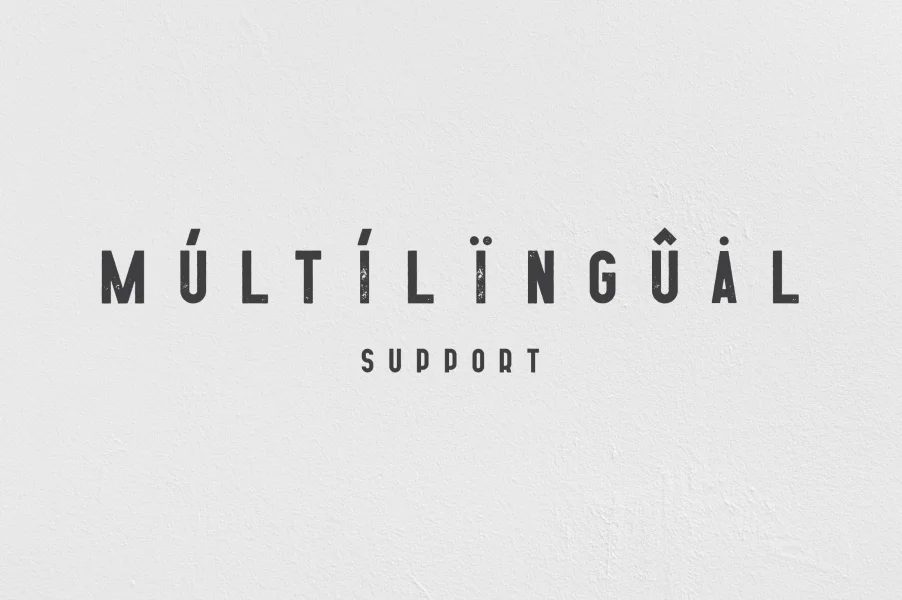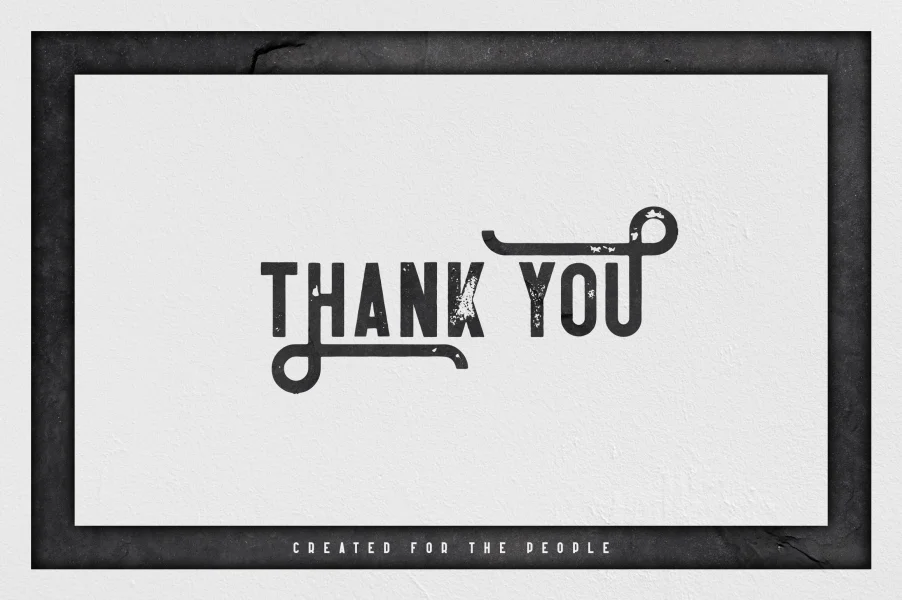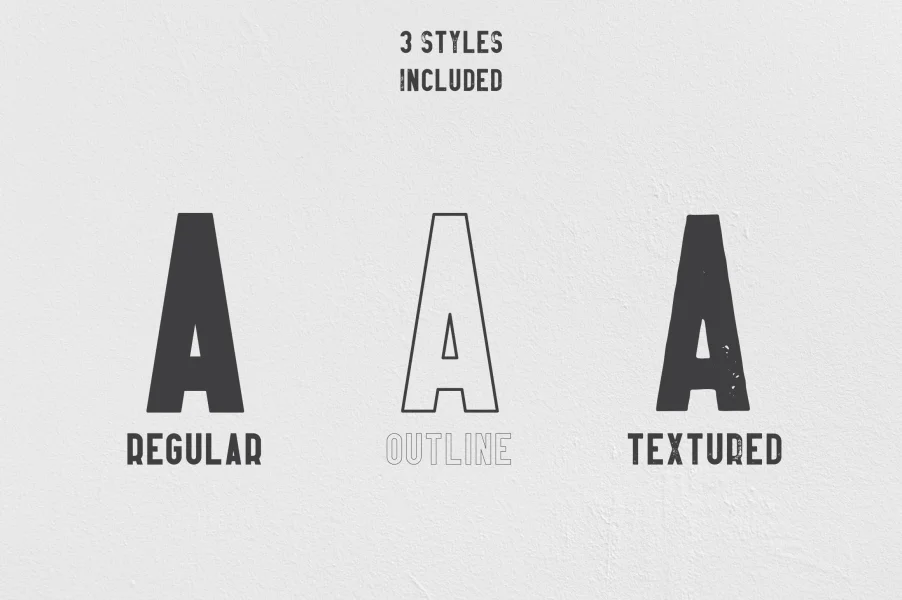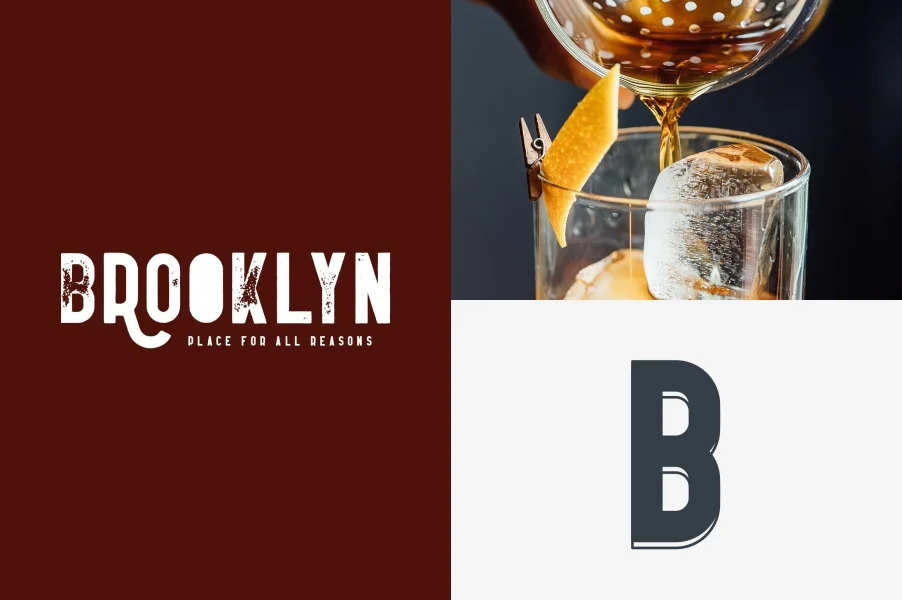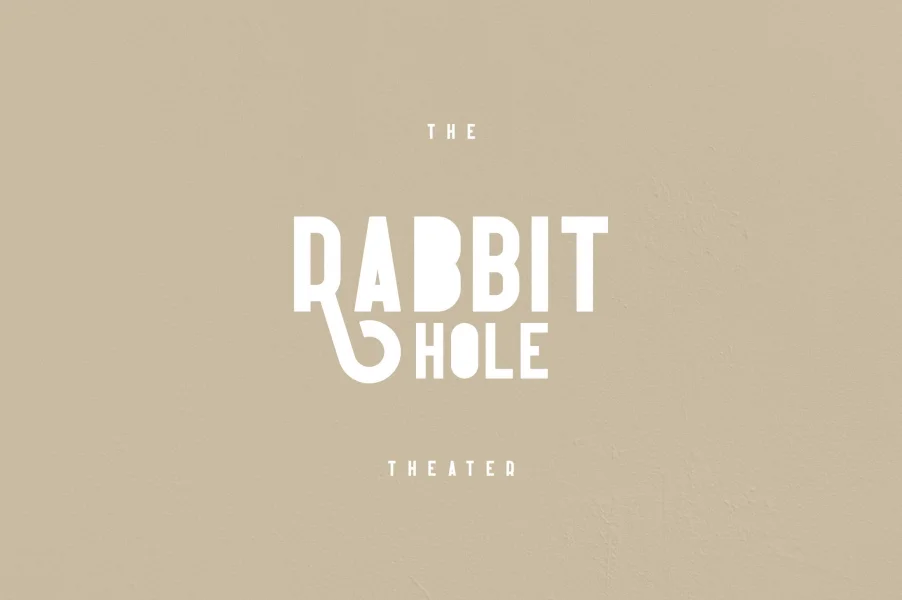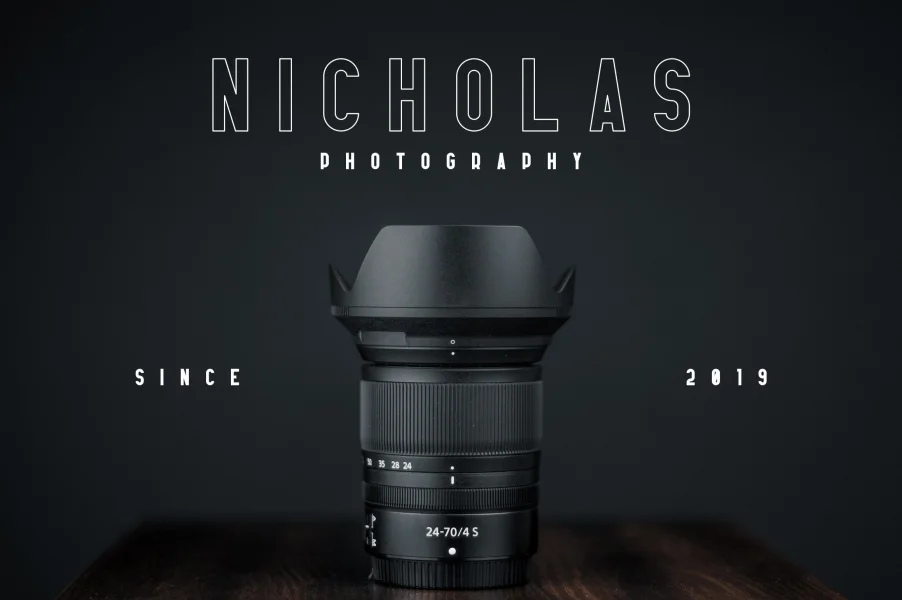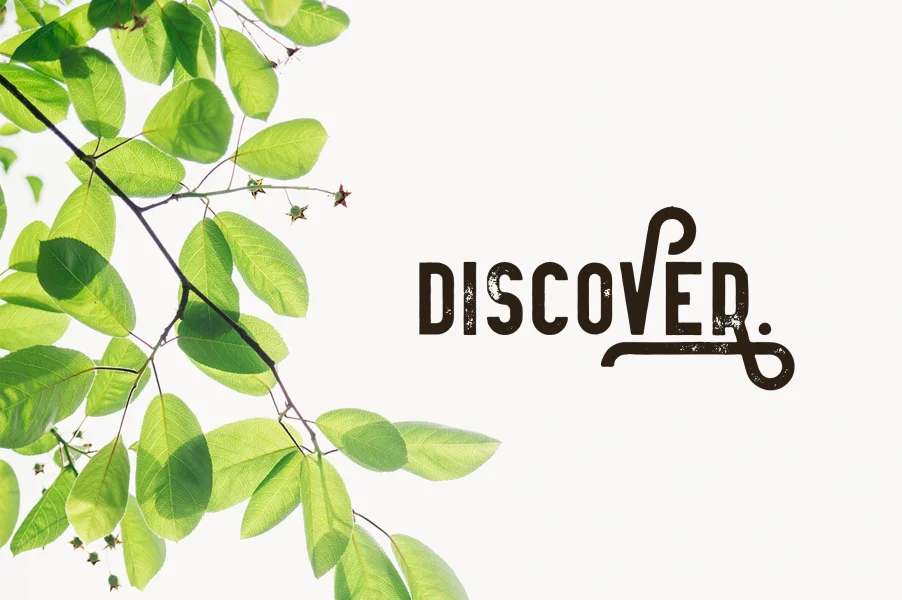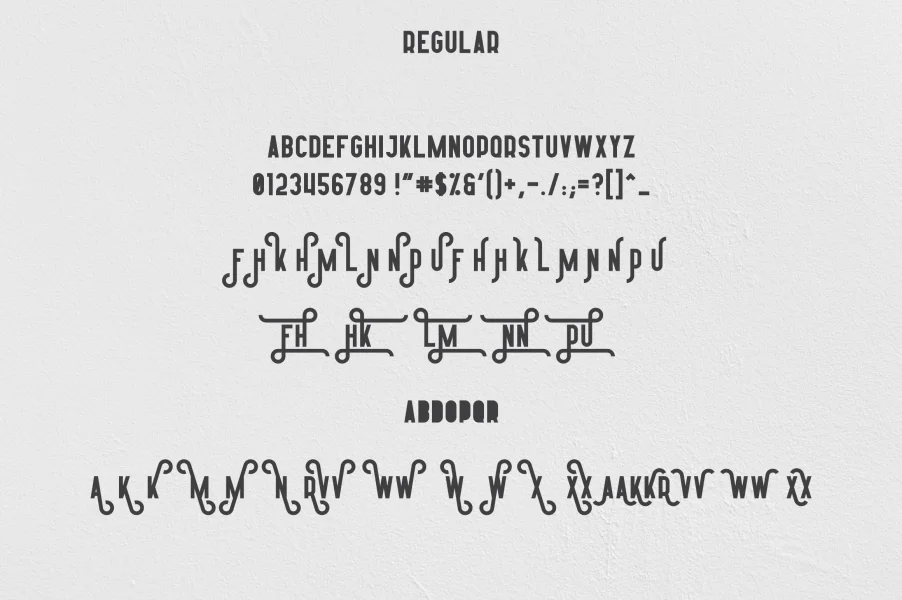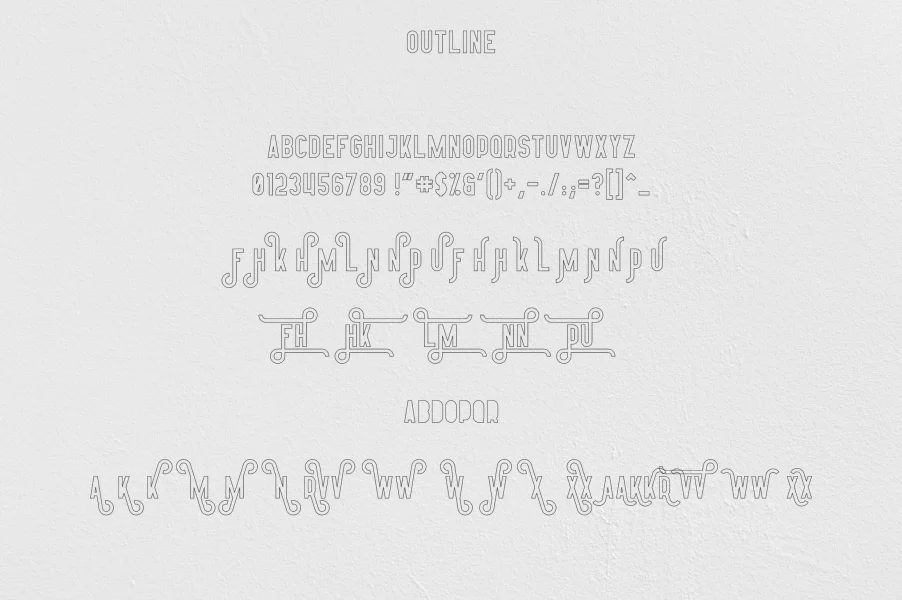
Introducing Afterclap typeface
Afterclap is clean, bold, vintage typeface with 3 styles, tons of alternative glyphs and multilingual support. It's a very versatile font that works great in large and small sizes.
Afterclap is perfect for branding projects, home-ware designs, product packaging, magazine headers - or simply as a stylish text overlay to any background image.
- Uppercase,lowercase, numeral,punctuation & Symbol
- Regular
- Outline
- Textured
- Tons of alternative glyphs
- Multilingual support